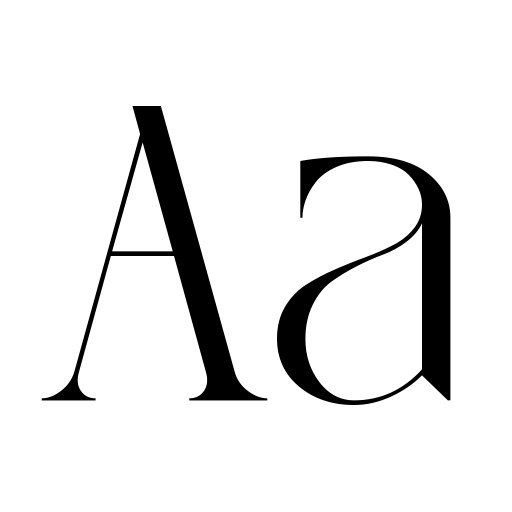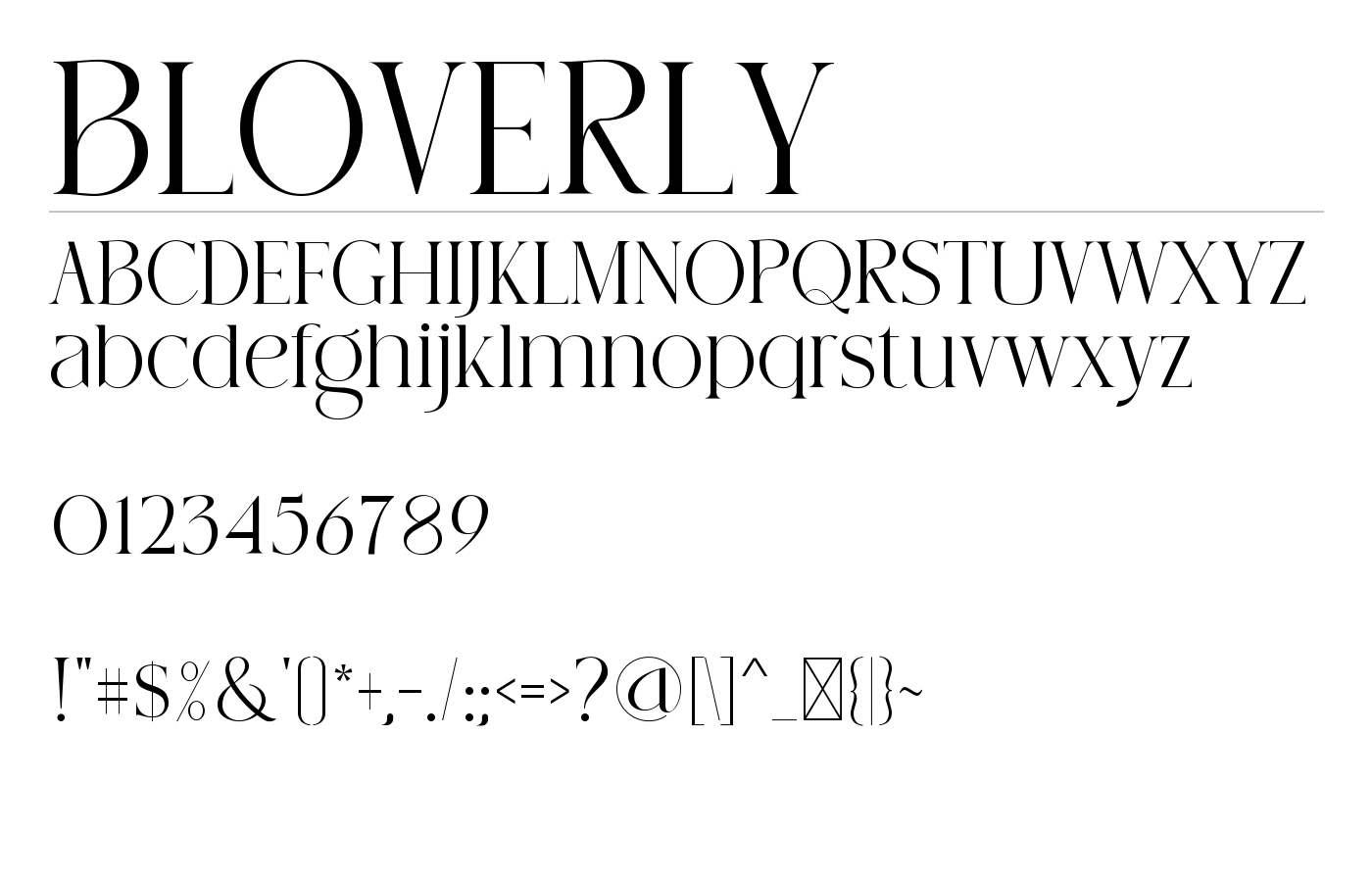
BLOVERLY is an elegant serif font characterized by its high contrast between thick and thin strokes, slender letterforms, and delicate bracketed serifs. With its tall x-height, refined curves, and distinctive details like the double-story lowercase 'g' and graceful tail on the 'Q,' it exudes a sophisticated, luxurious feel perfect for fashion branding, editorial headlines, and upscale packaging. This font works beautifully where a stylish, modern, yet classic impression is desired.
BLOVERLY Font
About BLOVERLY Font
| Font family | BLOVERLY Font |
| Designer | ToniStudio |